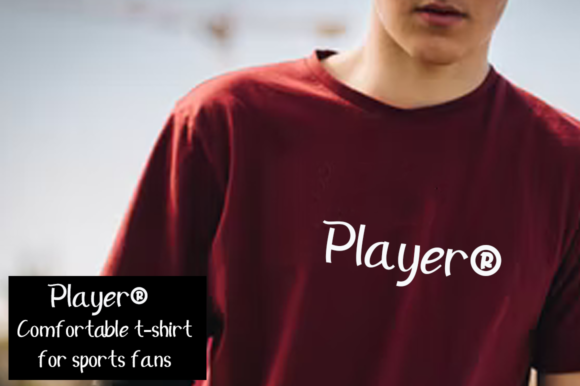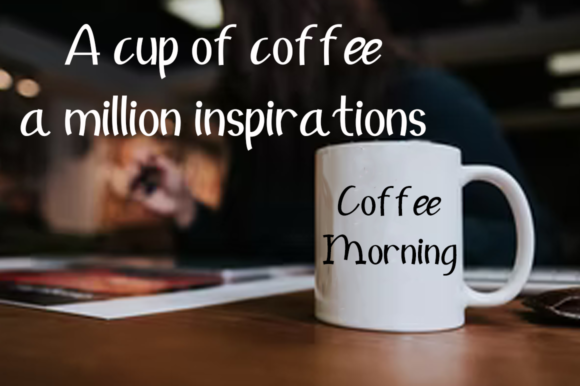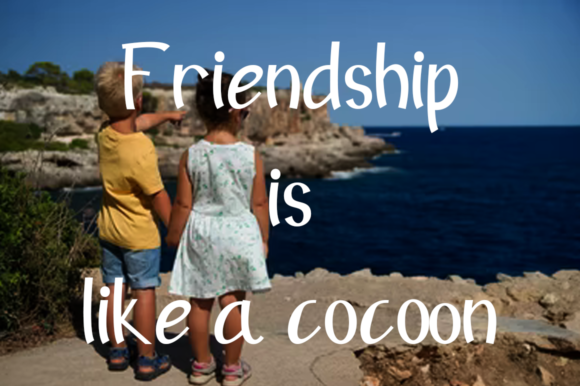
About Lucky Day Font
Lucky Day is a cute and simple-lettered handwritten font perfect for all the chalkboard quotes and teaching materials you wish to create! Its authentic look will add a personal and realistic feel to your designs.